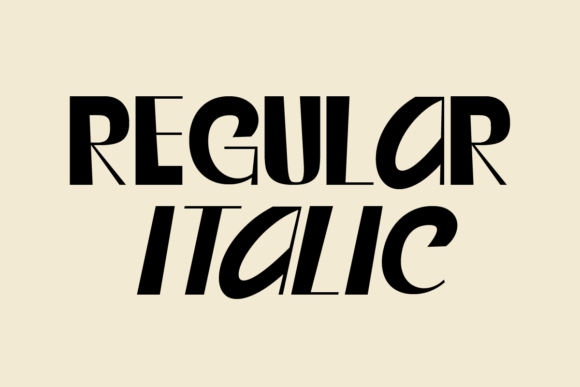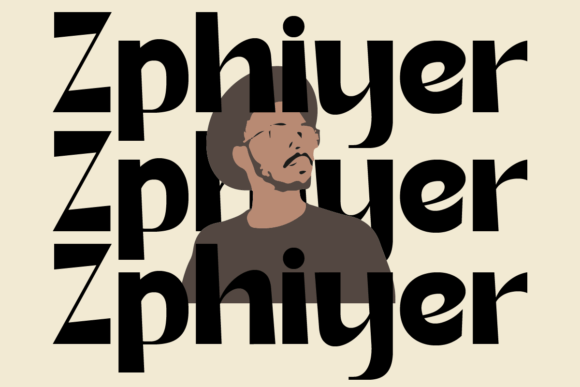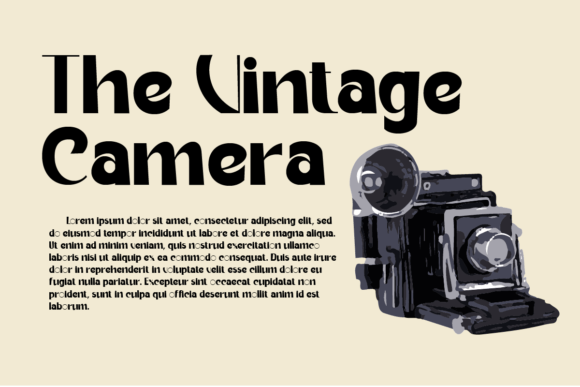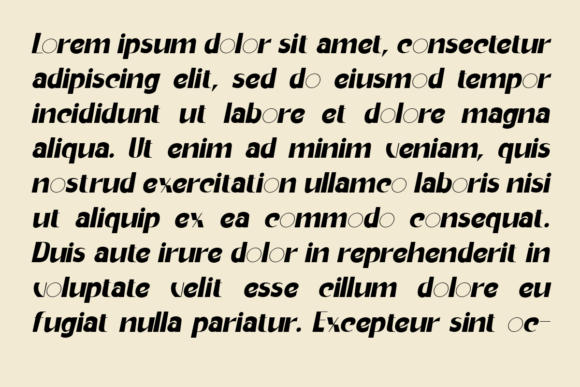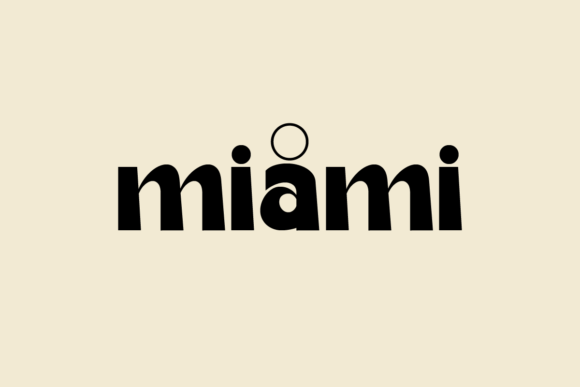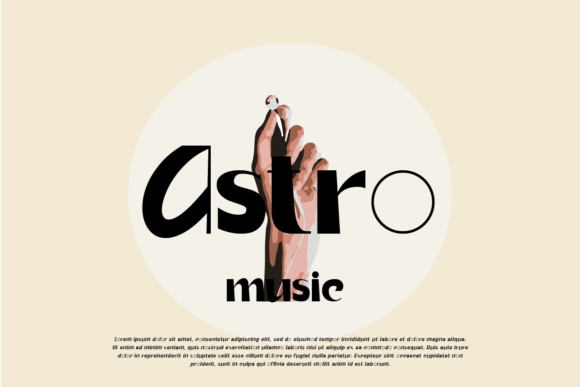
Galandrie Font: Elevate Your Designs with Modern Elegance
In the world of typography, a font can make or break a design. For designers and crafters looking for that perfect blend of modernity and elegance, the Galandrie Font stands out as a versatile and stylish choice. This article will delve into the features and benefits of the Galandrie Modern Display Font, exploring its special glyphs, ornament capabilities, multilingual support, and the wide range of applications it’s suited for.
Introducing Galandrie Modern Display Font
Galandrie is not just another font; it’s a design statement. Its modern and sleek aesthetic makes it an ideal choice for projects that demand a touch of sophistication. Whether you’re working on editorial projects, logo design, clothing branding, product packaging, or creating magazine headers, Galandrie brings a level of elegance and professionalism that’s hard to match.
Special Glyphs and Ornaments
One of the standout features of the Galandrie Font is its collection of special glyphs and ornaments. These elements allow designers to add an extra layer of creativity and uniqueness to their work. The glyphs and ornaments can be used to create visually appealing patterns, add accents to text, or even as standalone design elements. This feature is particularly useful for designers looking to create distinctive logos or for crafters who want to add a personal touch to their projects.
Multilingual Support
In a globalized world, design often needs to communicate across languages. The Galandrie Font offers multilingual support, making it a versatile tool for designers working on international projects. Whether your audience speaks English, Spanish, French, or any other language, Galandrie ensures that your message is conveyed with clarity and style.
Galandrie’s versatility is one of its most compelling attributes. It’s a font that works exceptionally well in both large and small sizes. This flexibility makes it suitable for a wide range of applications:
- Editorial Projects: Add a touch of elegance to your articles, blogs, or books with Galandrie’s clean and modern lines.
- Logo Design: Create memorable and stylish logos that stand out.
- Clothing Branding: Elevate your fashion brand with a font that exudes modernity and sophistication.
- Product Packaging: Make your products stand out on the shelves with eye-catching packaging designs.
- Magazine Headers: Capture your readers’ attention with stylish and contemporary headers.
- Text Overlay: Use Galandrie as a stylish text overlay on background images for a professional and polished look.
For designers, Galandrie offers the perfect blend of form and function. Its modern aesthetic and versatile features make it an invaluable addition to any design project. For crafters, the font provides a professional touch that can elevate handmade products, DIY projects, and craft business branding.
The Galandrie Font is more than just a typeface; it’s a design companion that can elevate your projects to new heights. With its modern display capabilities, special glyphs, ornament features, and multilingual support, Galandrie offers endless possibilities for creative expression. Whether you’re a designer working on a commercial project or a crafter looking to add a professional touch to your handmade goods, Galandrie is a versatile and stylish choice that can meet your needs.
Embrace the elegance and versatility of Galandrie Font in your next project. Explore its features, experiment with its capabilities, and discover how it can help you create stunning designs that leave a lasting impression.